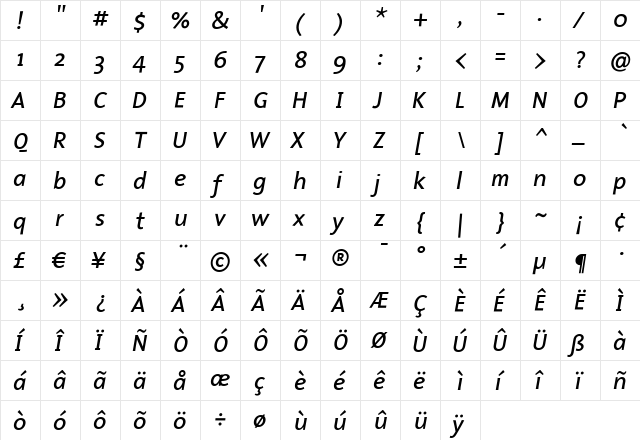
Malcom Medium Italic
Design Context for Malcom Typeface
Malcom takes a measured approach to typography — its balanced proportions and neutral character make it a reliable workhorse for both digital and print work. Its italic angle brings a sense of urgency and motion to the letterforms.
Pro Tip: Try Malcom for annotation and caption copy alongside an upright companion — the contrast in angle creates a dynamic but ordered typographic system.